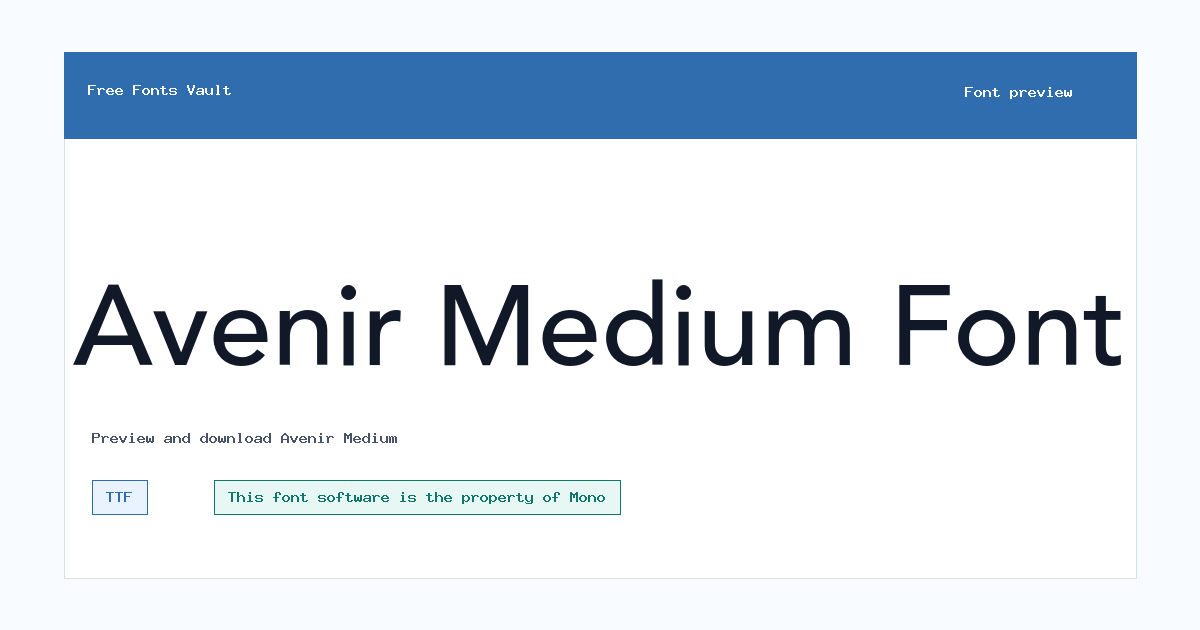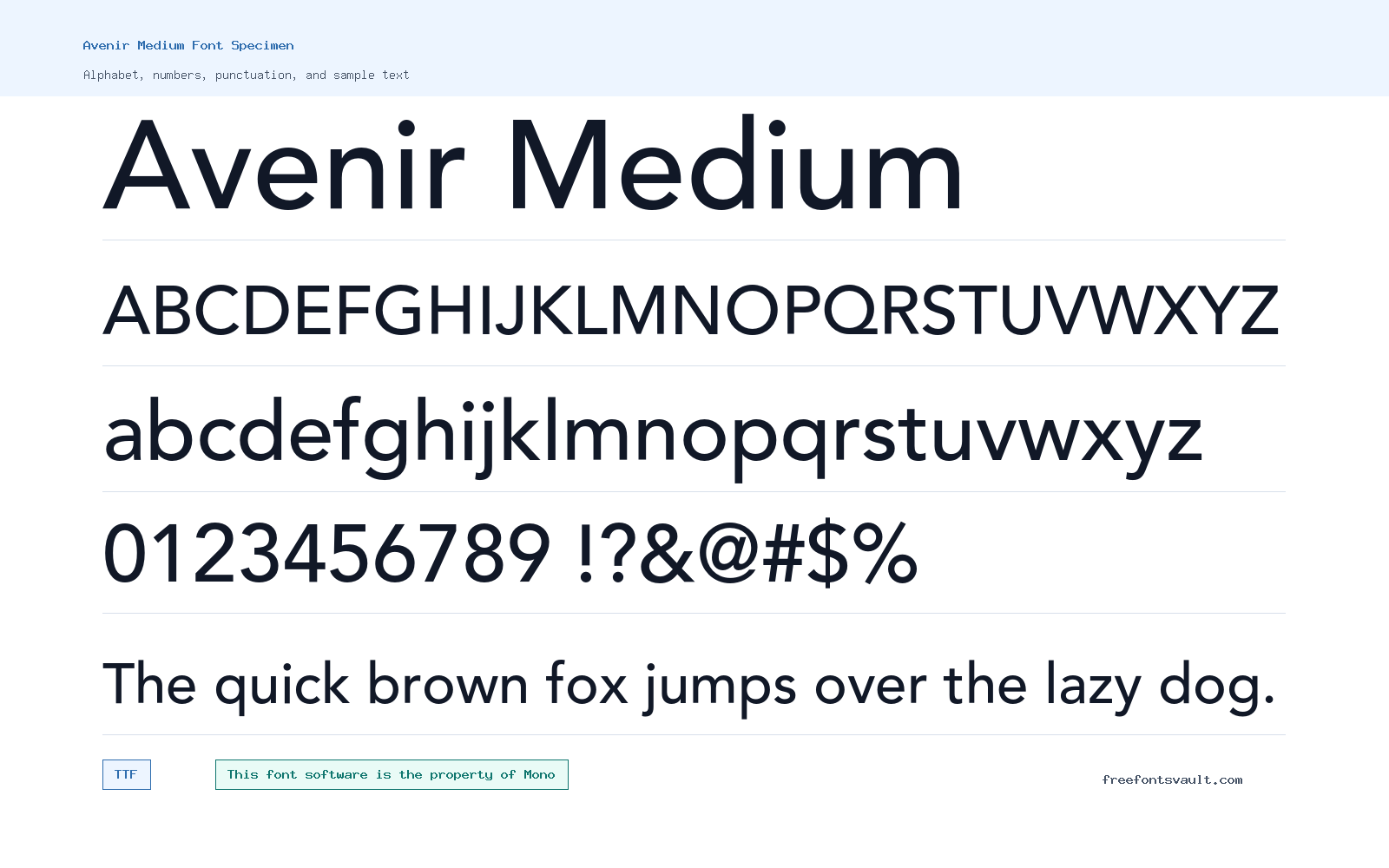
Avenir Medium
Avenir Medium is a clean, steady sans serif with the modern geometry of the Avenir family and a warmer, more readable feel than many purely constructed geometric fonts.
About Avenir Medium
Avenir was originally designed by Adrian Frutiger in 1988. Monotype describes the wider Avenir family as a geometric sans serif shaped with a more human and harmonious approach, which helps explain why Avenir Medium feels structured without looking cold. The Medium weight sits in a useful middle range: heavier than regular text styles, but not as forceful as bold or heavy cuts.
Use Avenir Medium when you need clear emphasis without turning the design into a loud headline. It can work well for interface headings, navigation labels, brand systems, editorial section titles, clean posters, and short marketing lines. In longer paragraphs, test spacing and size carefully; the Medium weight is often strongest for headings, labels, cards, buttons, and short blocks rather than dense body copy.
• Medium-weight sans serif with a clean geometric structure and a readable humanist tone.
• Useful for short text, interface labels, headings, and modern layout systems.
• Part of the broader Avenir family associated with Adrian Frutiger and Linotype/Monotype releases.
• UI headings and navigation
• Brand identity systems
• Editorial section titles
• Clean poster layouts
• Short promotional text
• Cards, buttons, and labels
Avenir is credited to Adrian Frutiger in the MyFonts listing for the Avenir family. The supplied designer information also names Nadine Chahine, which aligns with Monotype’s later Avenir Next World expansion work involving her and other designers.
Try Avenir Medium in the preview with real words from your project, not only alphabet samples. Check uppercase labels, numbers, punctuation, and sentence-length headings. Pair it with a lighter Avenir style for body text if you have a licensed family, or choose a quiet serif or neutral sans for supporting copy so the Medium weight keeps its role as emphasis.
What kind of font is Avenir Medium?
It is a medium-weight sans serif from the Avenir family. The family is generally described as a geometric sans with a more human, harmonious feel.
Who designed Avenir?
The MyFonts Avenir listing credits the Avenir font family to Adrian Frutiger. The supplied information for this font also names Nadine Chahine, whose work is connected with later expanded Avenir family coverage.
What is Avenir Medium best used for?
It is a strong choice for headings, navigation, UI labels, brand systems, posters, and short editorial text where clean emphasis is needed.